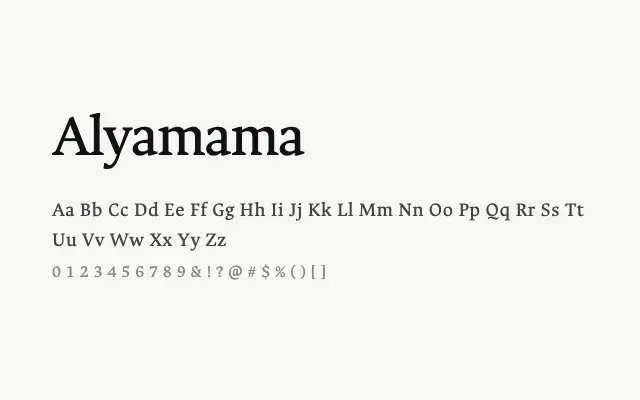
Alyamama
A thoughtfully engineered multi-script serif unifying Arabic, Greek, and Latin in a single harmonious typeface.
Alyamama is a rare achievement in multi-script type design, bringing Arabic, Greek, and Latin scripts into visual alignment across seven weights. The Arabic component respects calligraphic traditions while remaining legible at text sizes, and the Latin maintains compatible proportions and contrast. It is well-suited to publishing, academic, and institutional contexts requiring typographic consistency across scripts.
A multi-script serif designed to harmonise Arabic, Greek, and Latin letterforms within a single coherent system. The design balances traditional Arabic calligraphic structure with the proportions of a contemporary Latin serif.